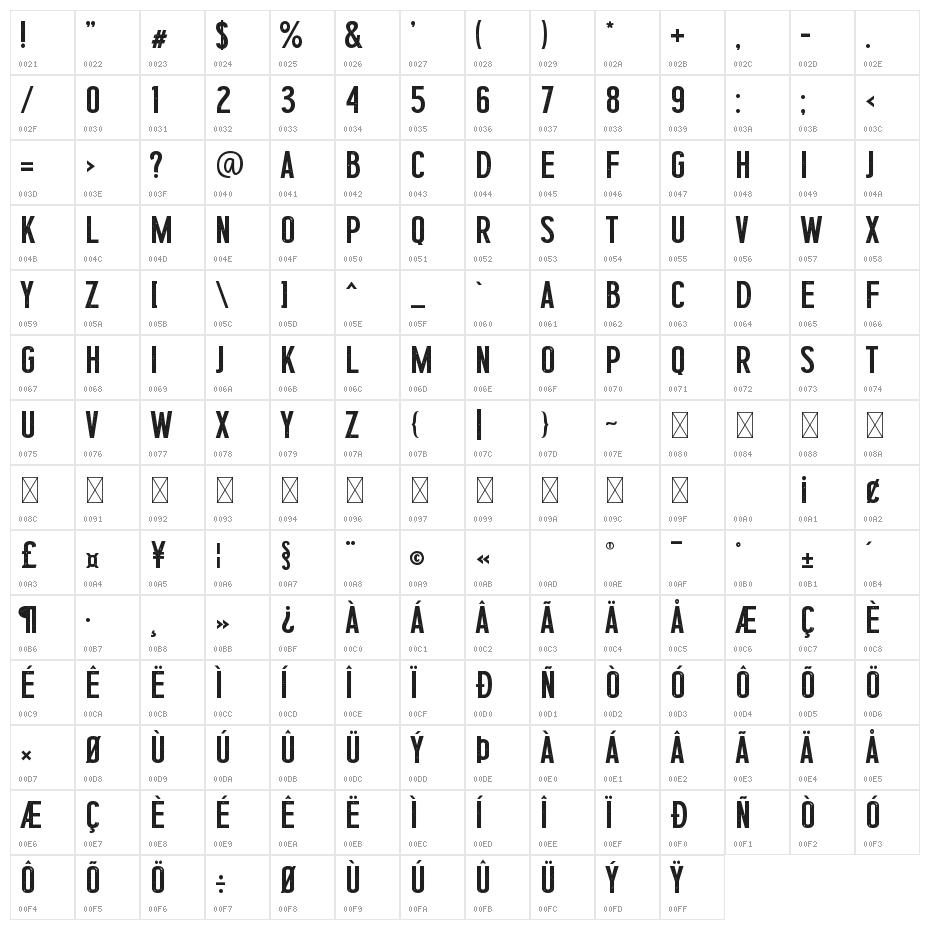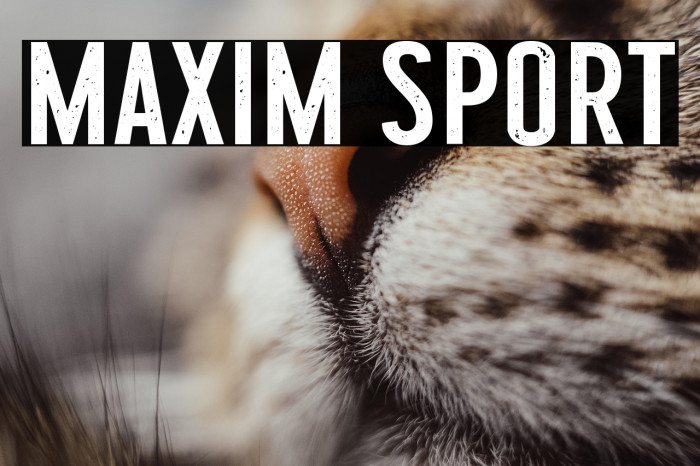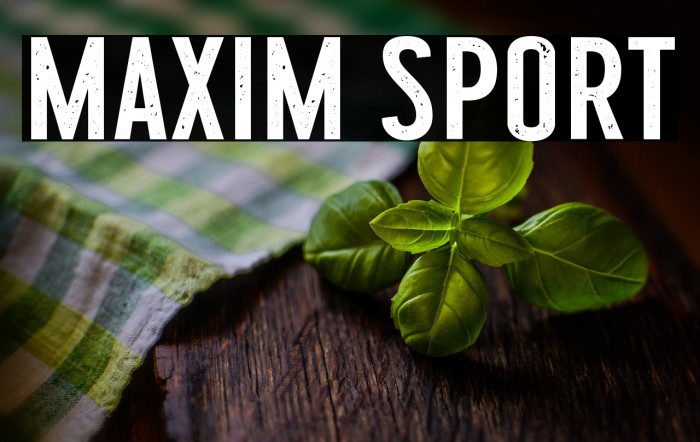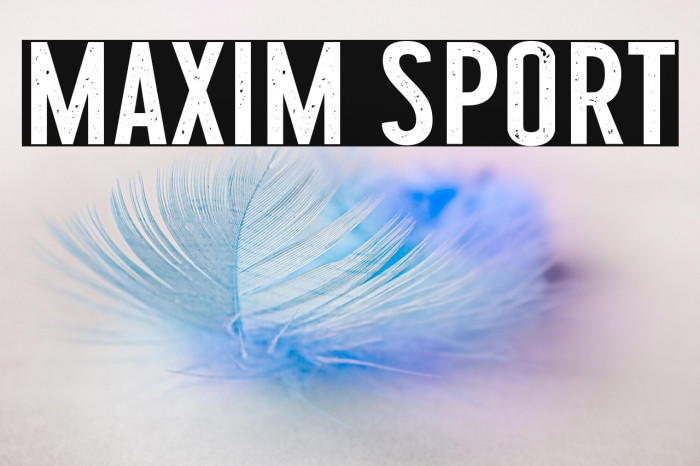
Maxim Sport Font
Maxim Sport Description
This font features a bold, athletic style with a distressed texture that gives it a rugged, vintage appearance. The uppercase letters are strong and commanding, making it ideal for impactful headlines or sports-themed designs. The numbers and special characters maintain the same boldness and texture, ensuring consistency across all text elements. The font's design is straightforward yet visually striking, with a uniform width and a slightly condensed form that enhances its boldness. The distressed effect adds character, making it suitable for projects that require a touch of nostalgia or a gritty aesthetic.
| Proposed Projects | Ideal for sports branding, vintage posters, apparel design, and impactful headlines. |